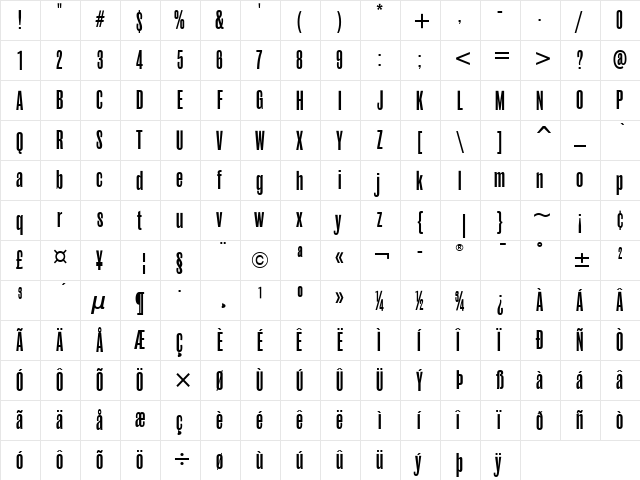
Roswell Four ITC Bold
Design Context for Roswell Four ITC Typeface
Roswell Four ITC is a composed and adaptable typeface that performs quietly and consistently across a wide range of design contexts. Its bold stroke weight gives it real presence on the page.